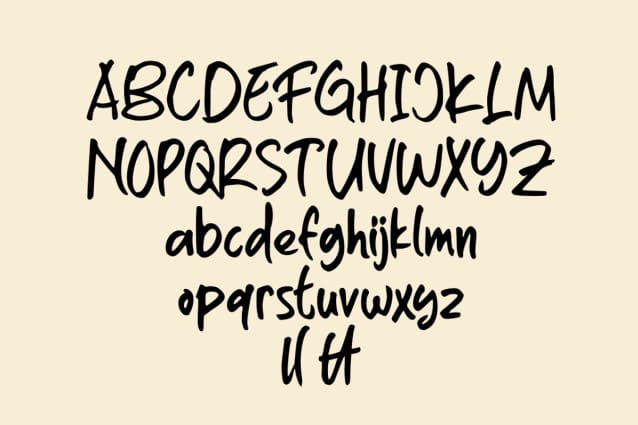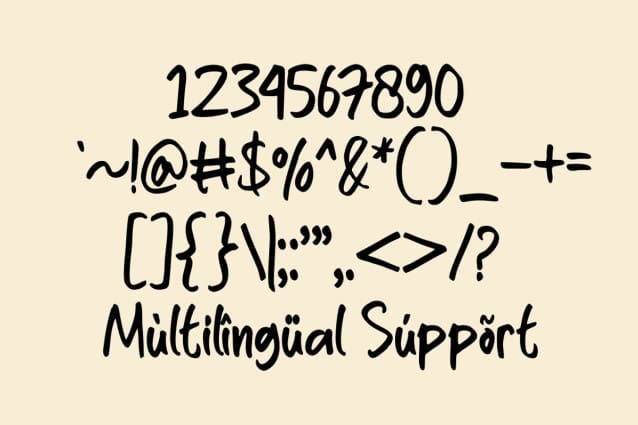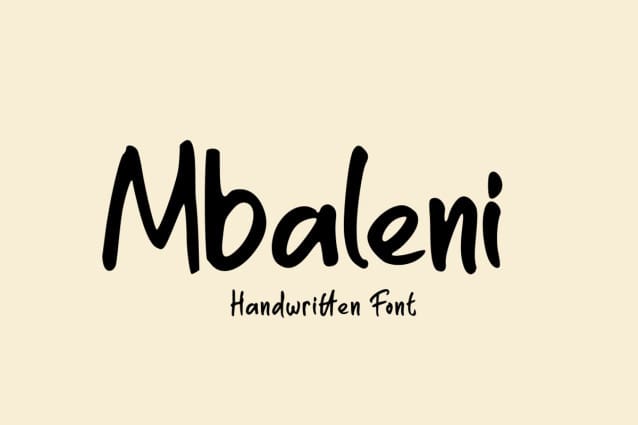
Mbaleni Font
Mbaleni Font is a casual and friendly handwritten font. Whimsical and a bit quirky, this font will brighten up each of your designs. Add it confidently to your projects, and you will love the results.